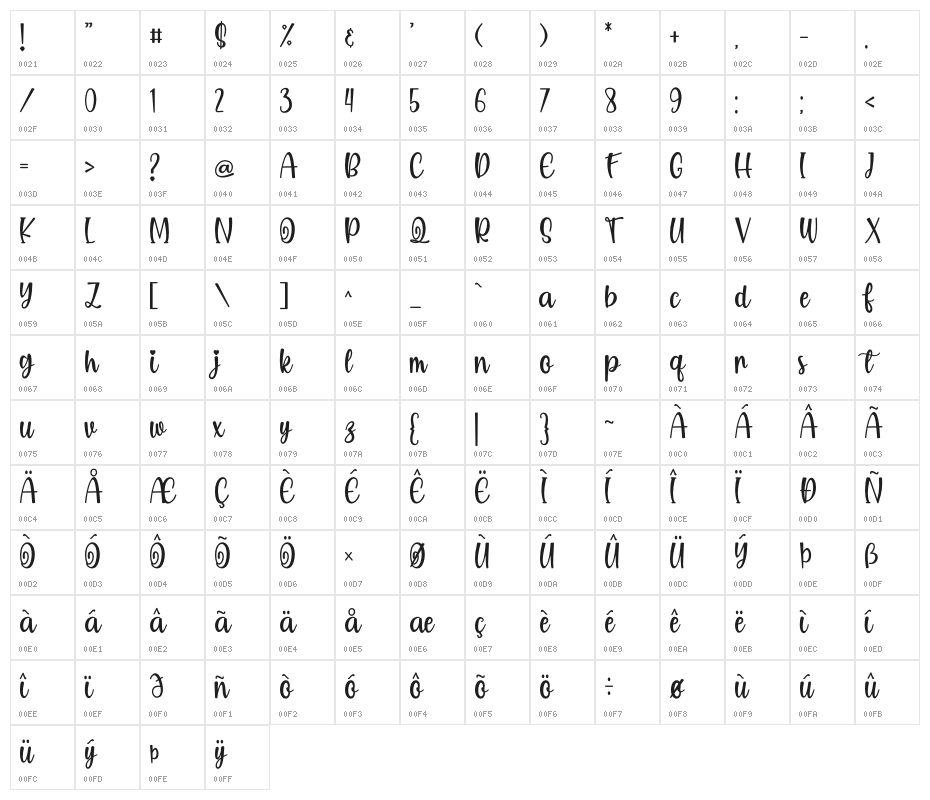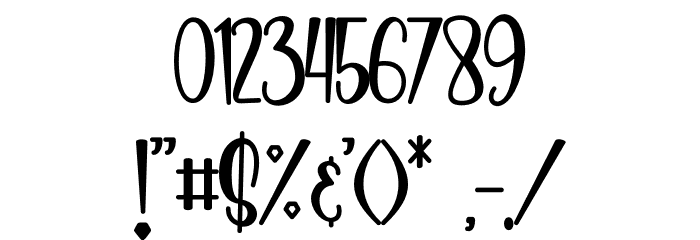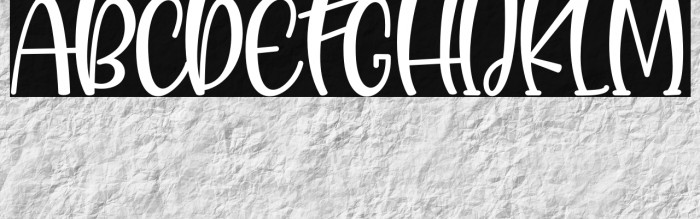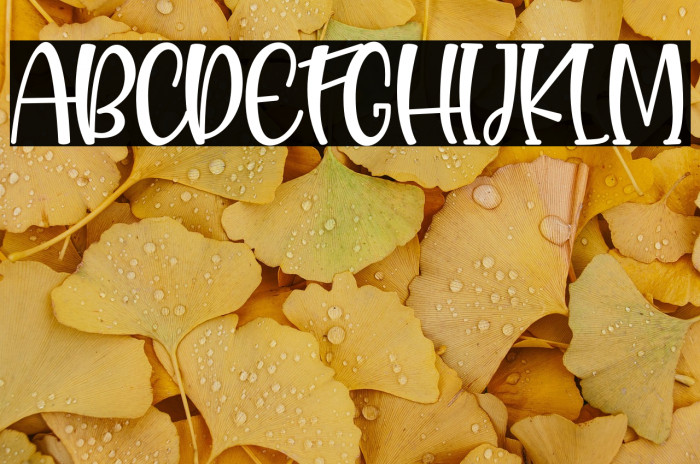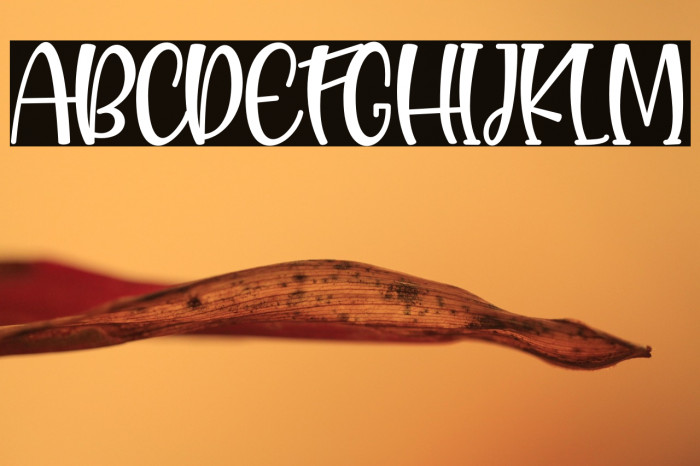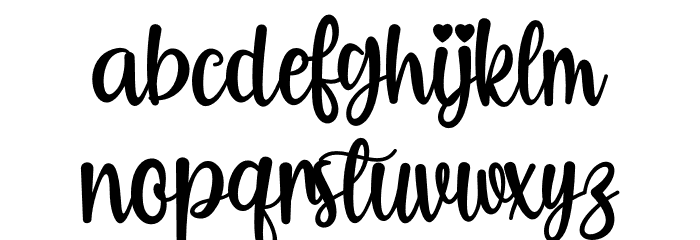
Intimatte Font
Intimatte Description
This font features a playful and whimsical style, characterized by its bold and flowing script. The uppercase letters are tall and slightly narrow, with unique flourishes that add a touch of elegance. The lowercase letters maintain a consistent flow, with some characters featuring distinctive loops and curls. Numbers are bold and easy to read, while the special characters complement the overall style with their decorative flair. The font's design is both modern and artistic, making it suitable for a variety of creative projects.
| Proposed Projects | Ideal for greeting cards, invitations, branding, and decorative signage. |